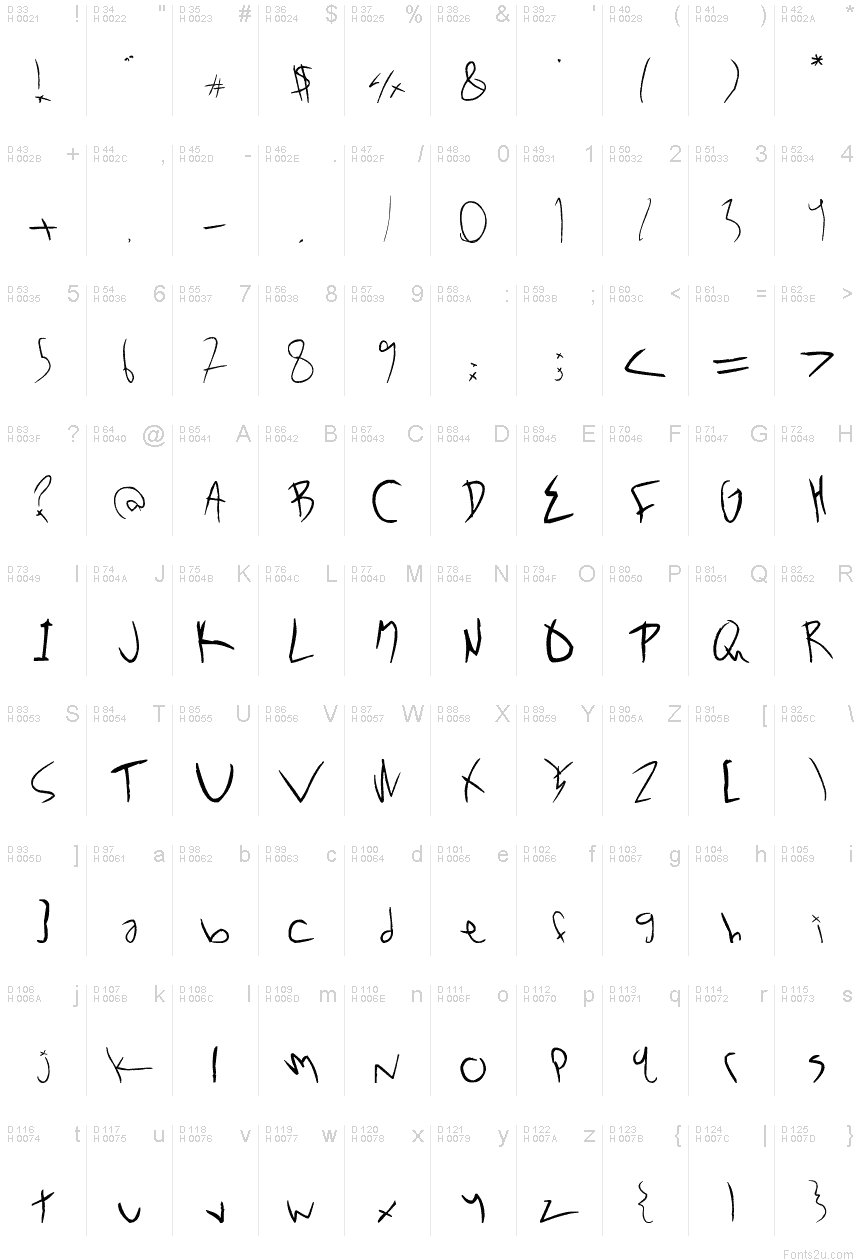
NOxWAY? is a free scratch-drawn display font. Its uneven strokes switch abruptly between wiry lines and broad, inked curves. The letters look restless and deliberately raw.
A punk gig poster is its clearest home, since the jagged forms resemble hurried marker lettering and torn-flyer graphics. That same abrasive hand suits small-label record packaging, band merchandise, underground magazine covers, and local event flyers. Across those uses, the shifting stroke widths make the type feel less like polished typography and more like part of the artwork.